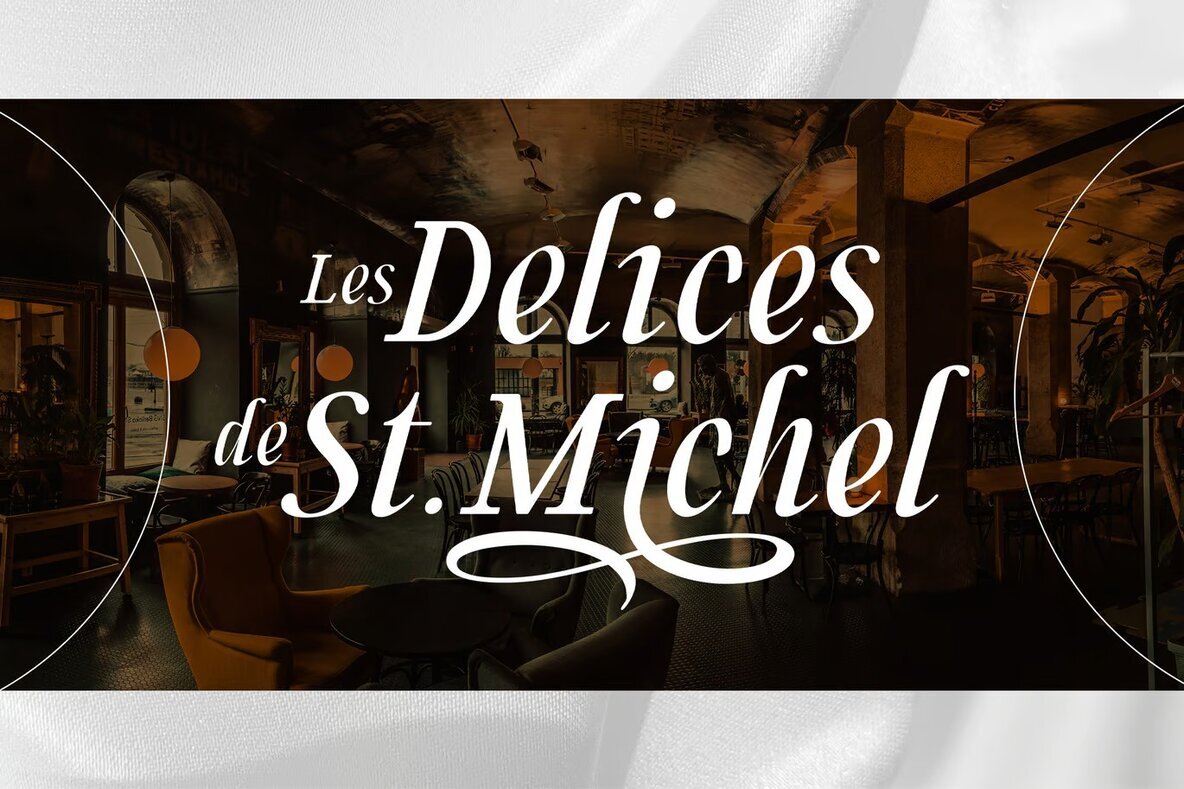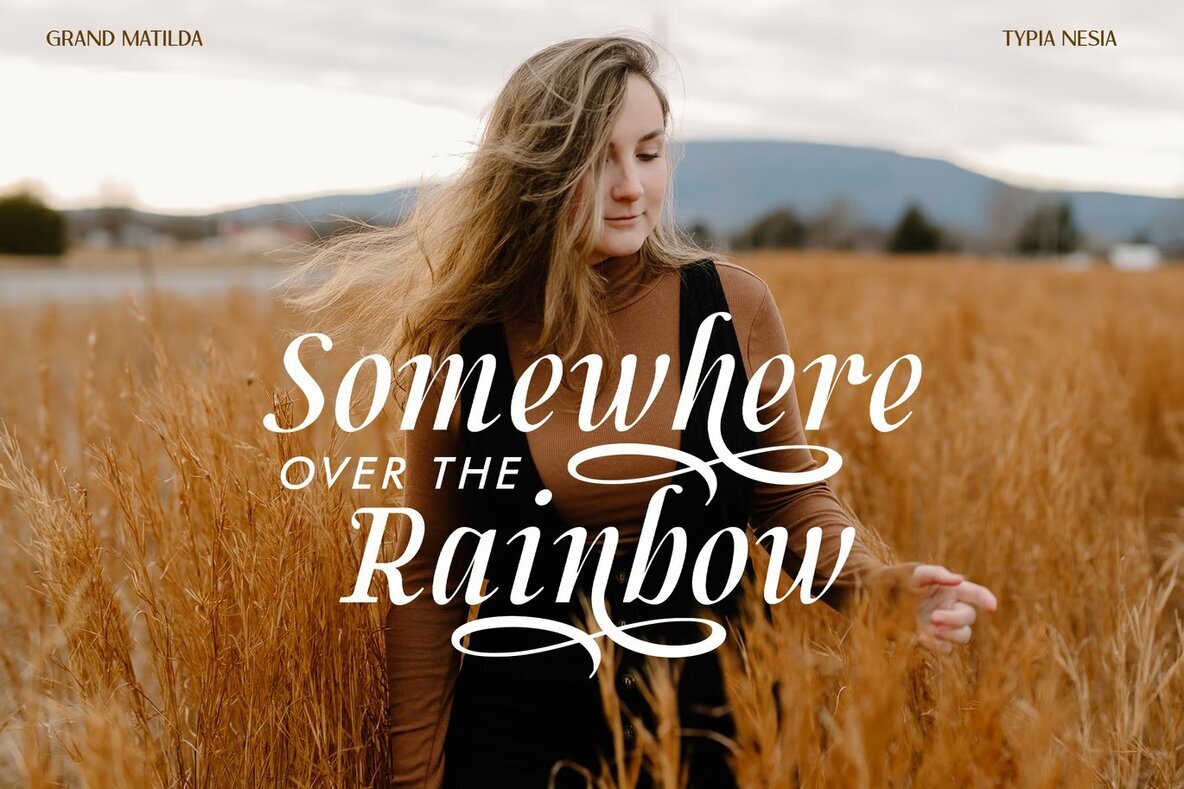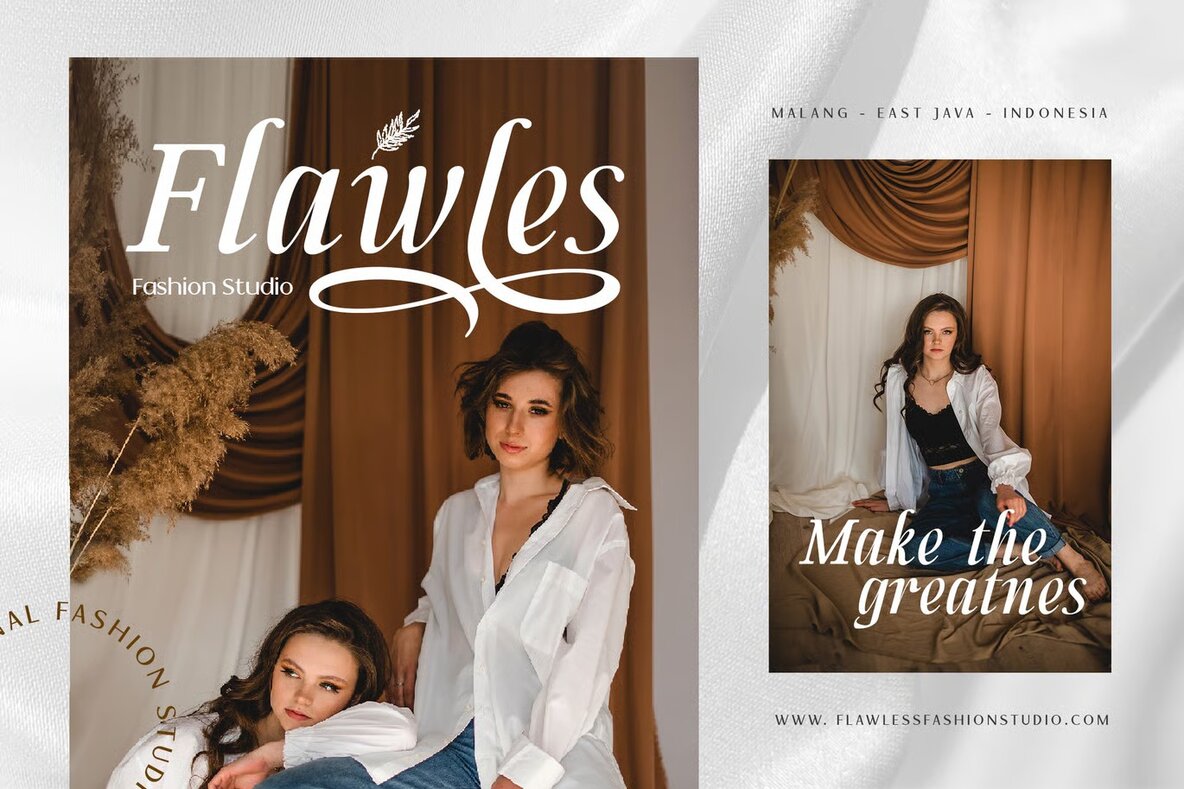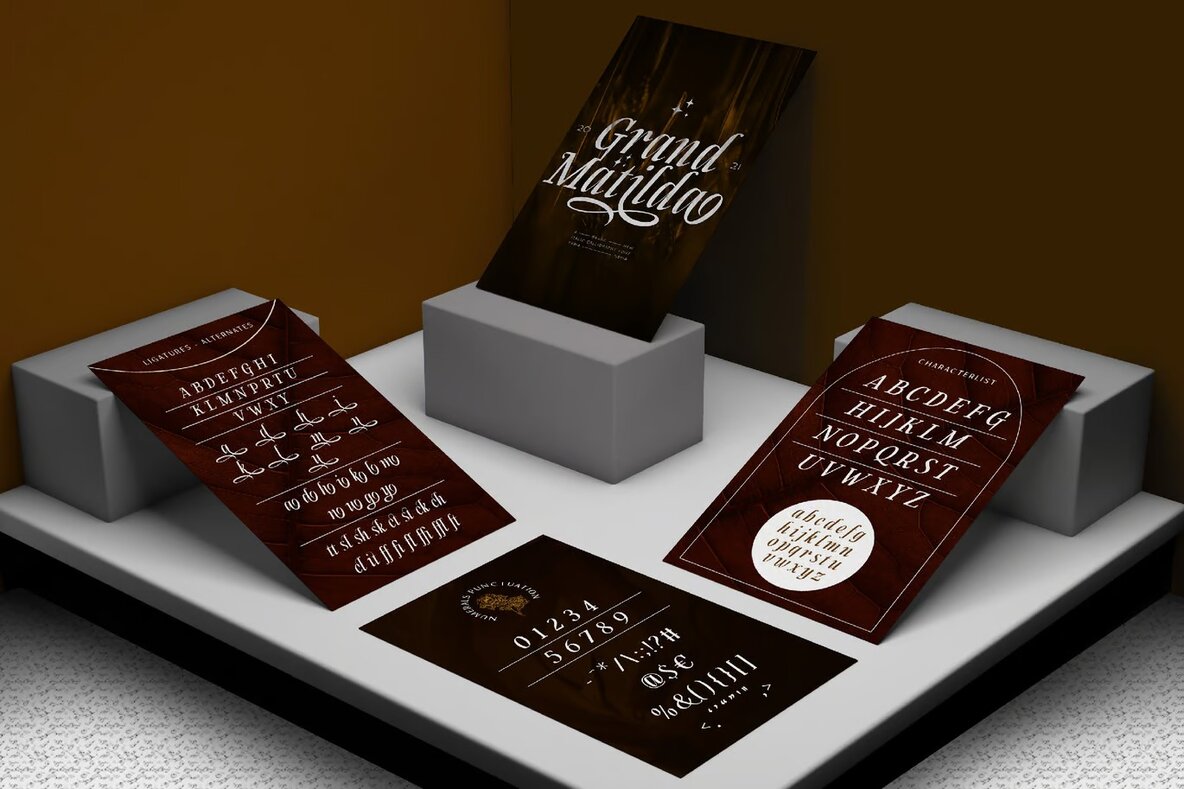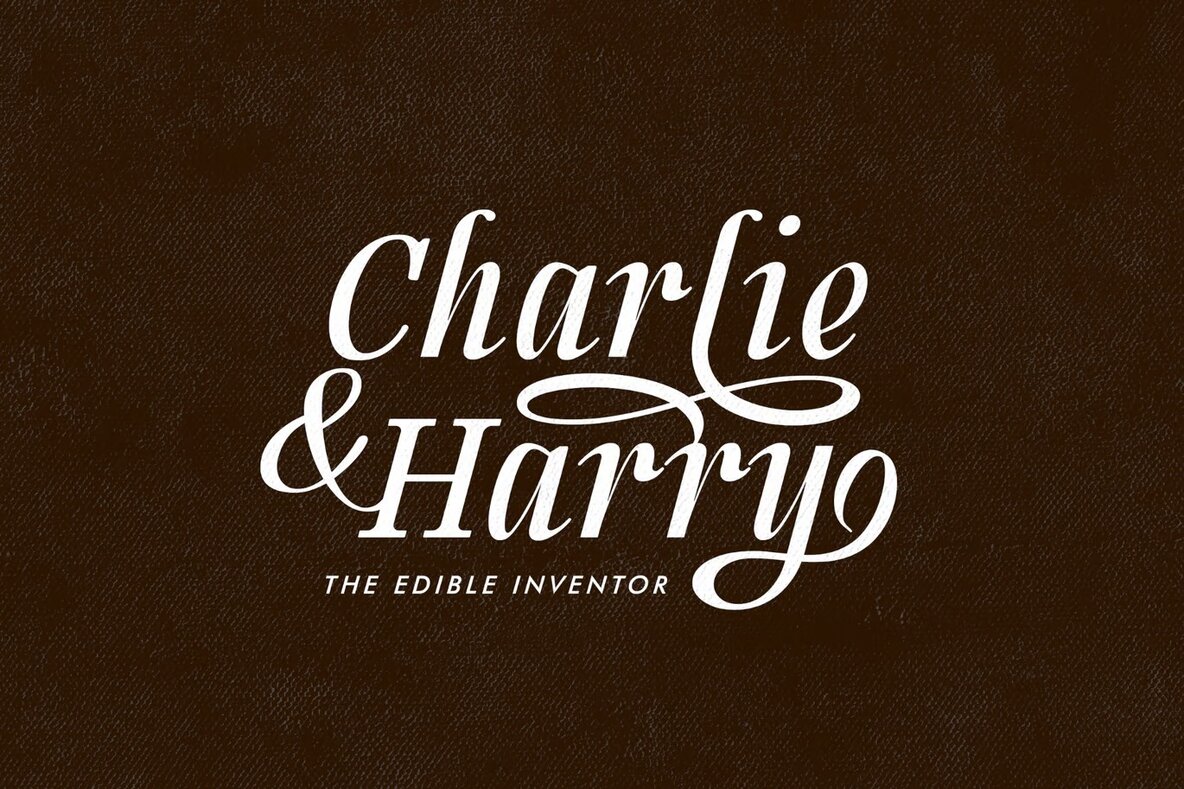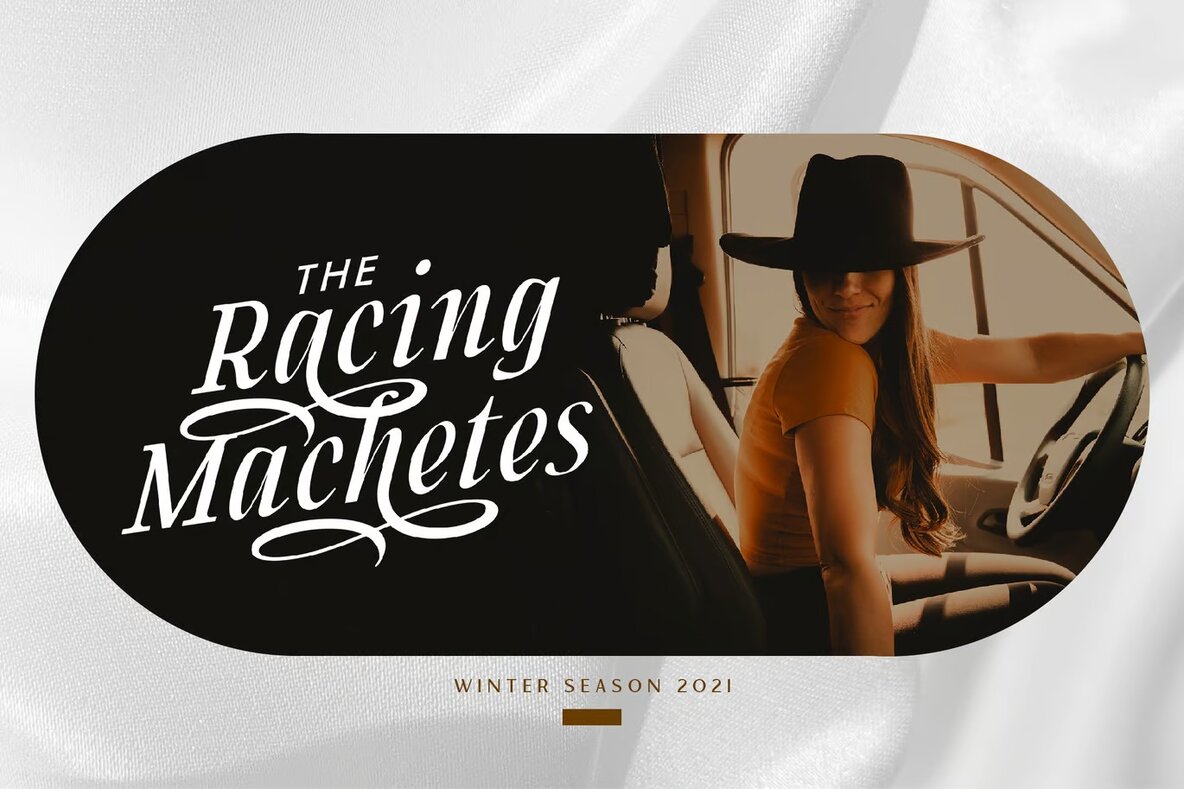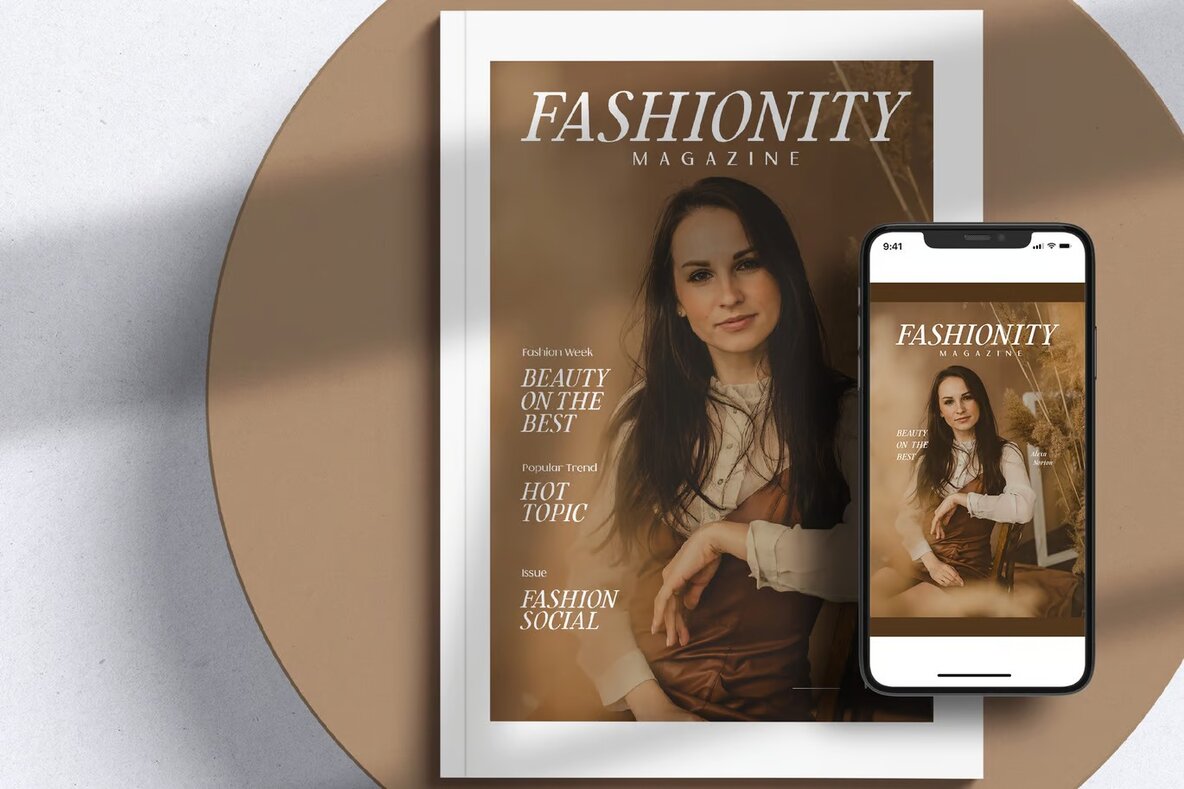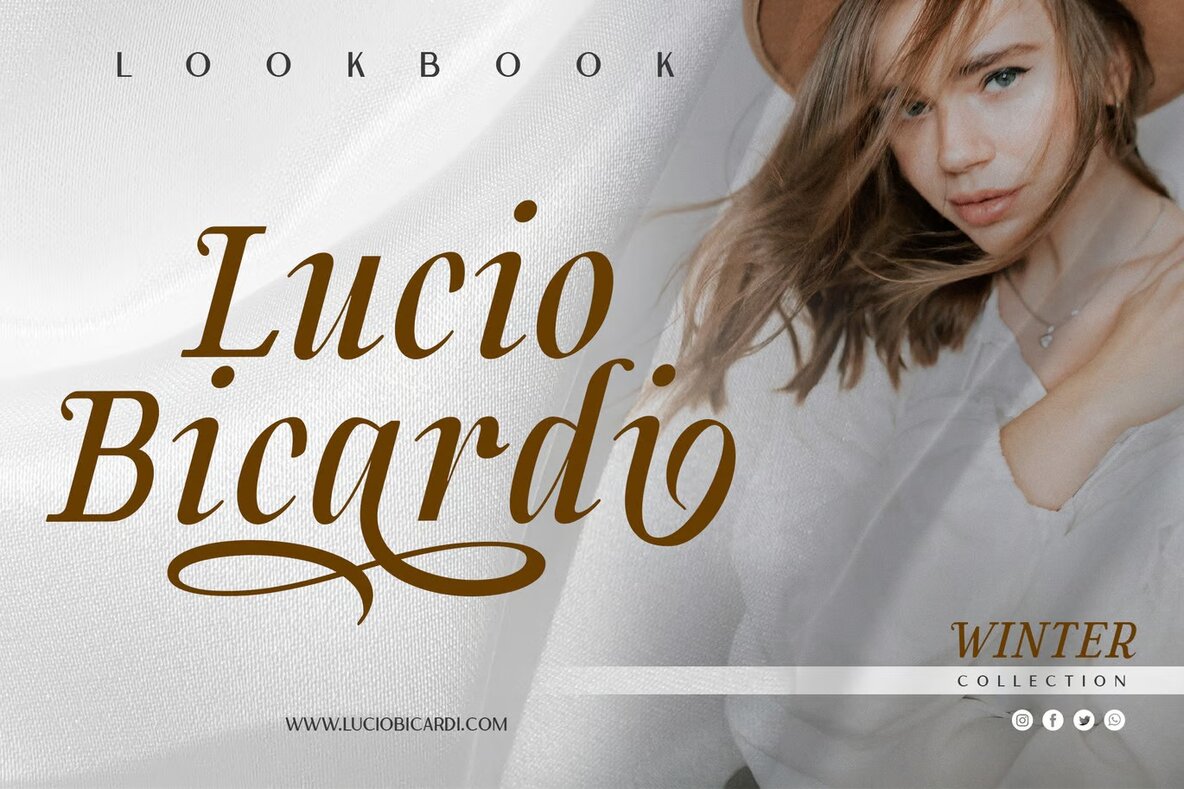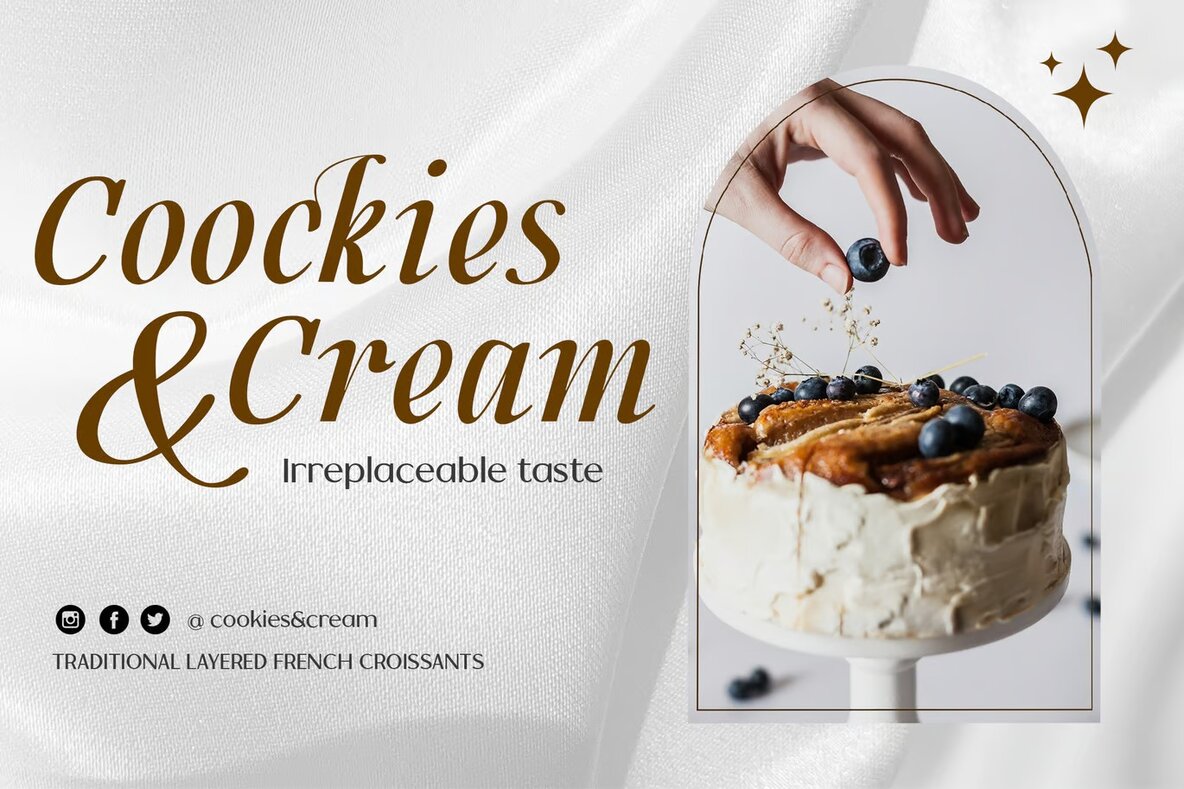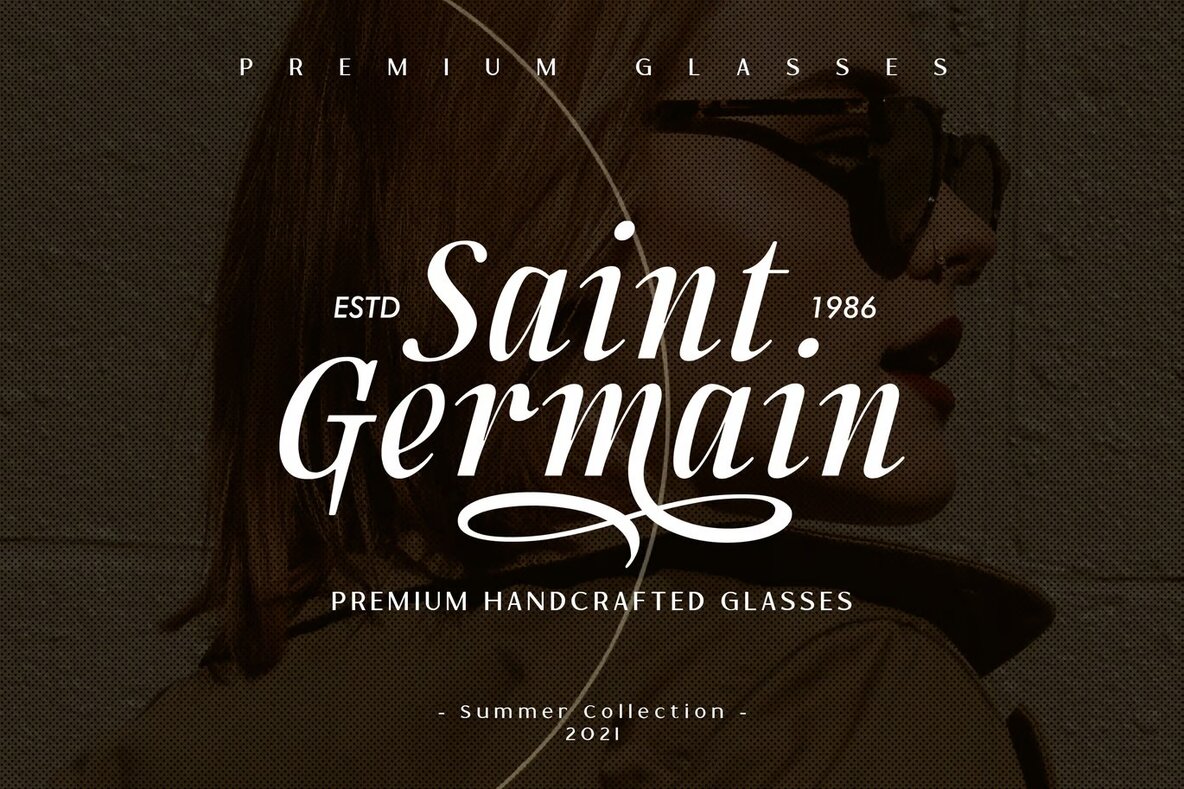
Grand Matilda Font
Grand Matilda Italic
Grand Matilda is a refined italic calligraphy font that offers a blend of sophistication and versatility, making it an ideal choice for various design projects. This typeface features an extensive set of characters, including uppercase and lowercase letters, punctuation, numerals, and OpenType features such as ligatures, alternates, and swashes. These elements allow designers to create unique and compelling typography designs.
Whether you're working on luxury logos, branding projects, or high-end editorial designs, Grand Matilda fits seamlessly into diverse thematic contexts. It's perfect for women's magazines, cosmetic branding, fashion promotions, art galleries, architectural projects, and boutique branding. Additionally, it enhances stationery, modern advertising, card invitations, and art quotes. Its tasteful design also complements book covers, special events, and home décor, delivering a classic touch to any creative endeavor.